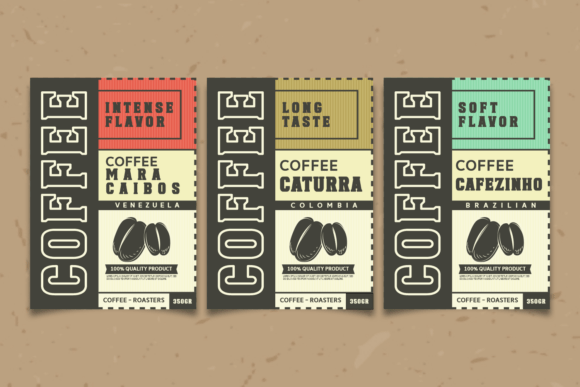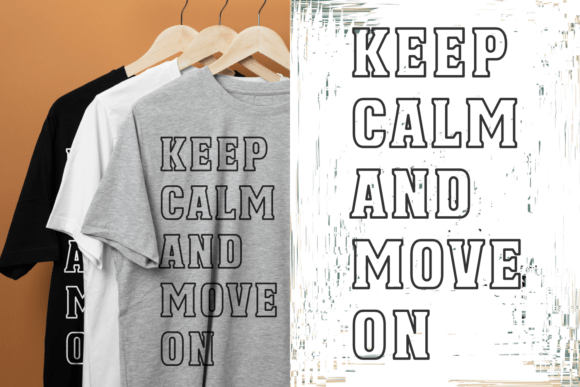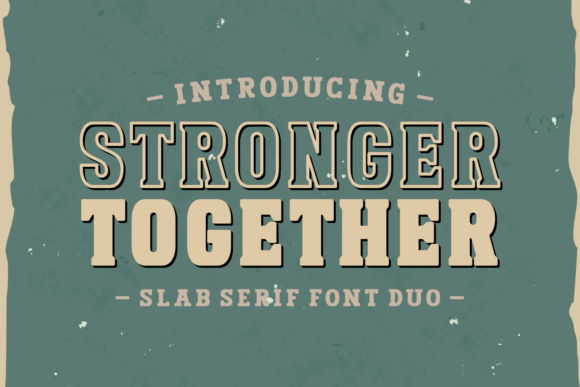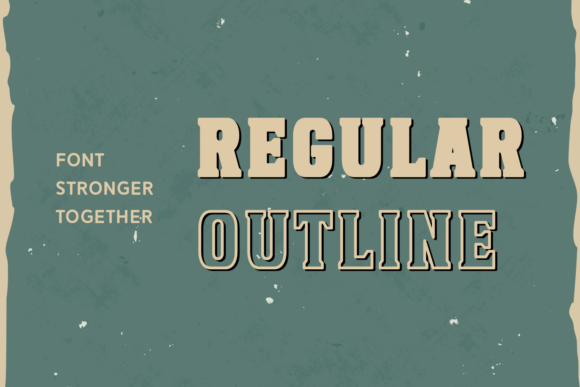
Stronger Together Font
About the Stronger Together Font
Let us introduce you to Stronger Together Font, where timeless design meets modern craftsmanship. Stronger Together typeface has a unique allure that sturdily bridges the gap from the farmhouse to the corporate world. This versatile typeface doubles up as a movie and jersey font, utilized widely across institutions due to its exceptional university and sports font adaptations. Graciously bathed in tones of vintage sunshine, the font exudes classic charm.